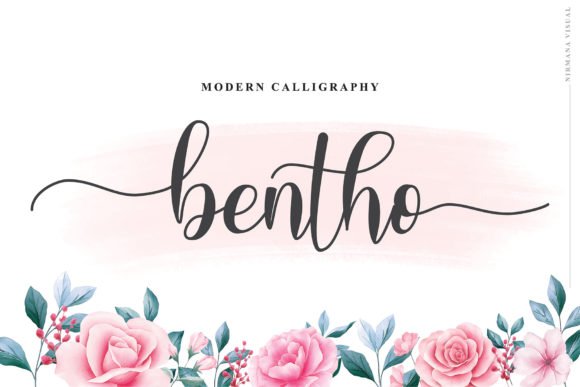
Introduction to Bentho Font
Bentho is a beautiful script font carefully created with a romantic style.
This is a beautiful combination of timeless elegance and authentic calligraphy .
Key Features of Bentho Font